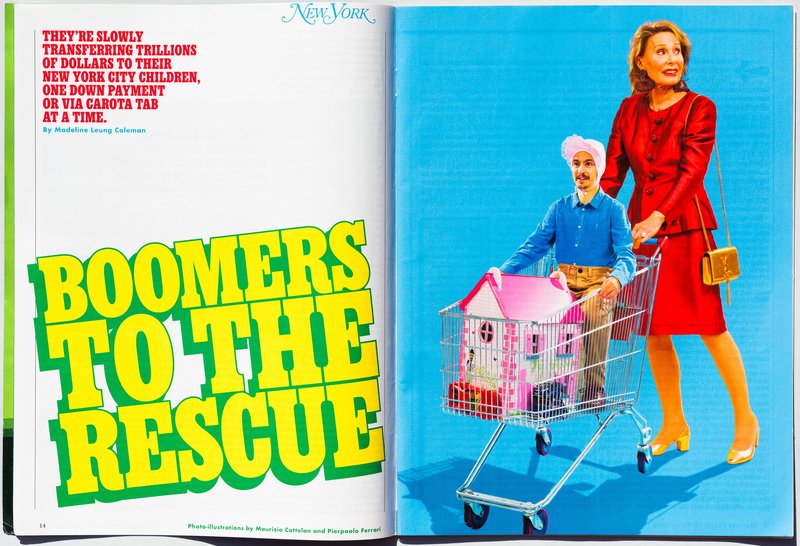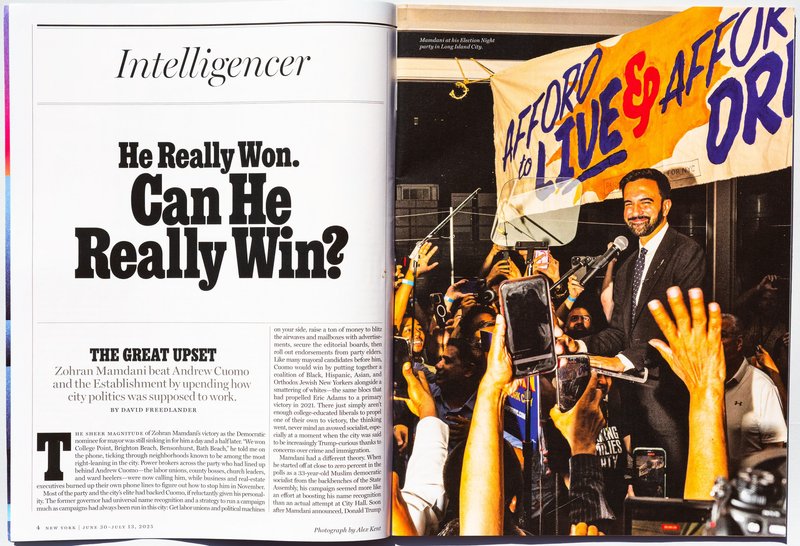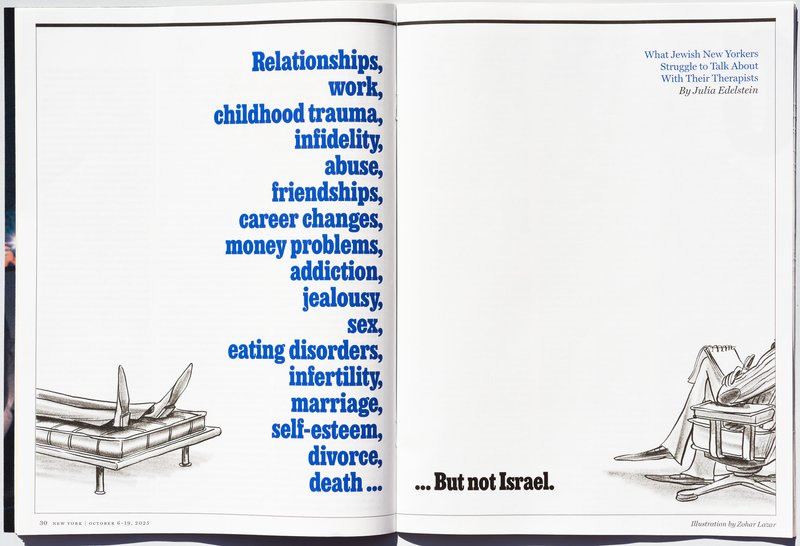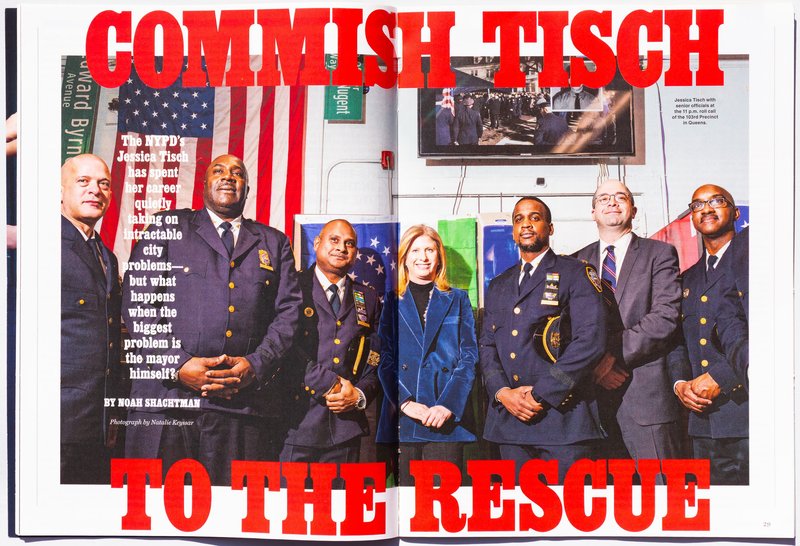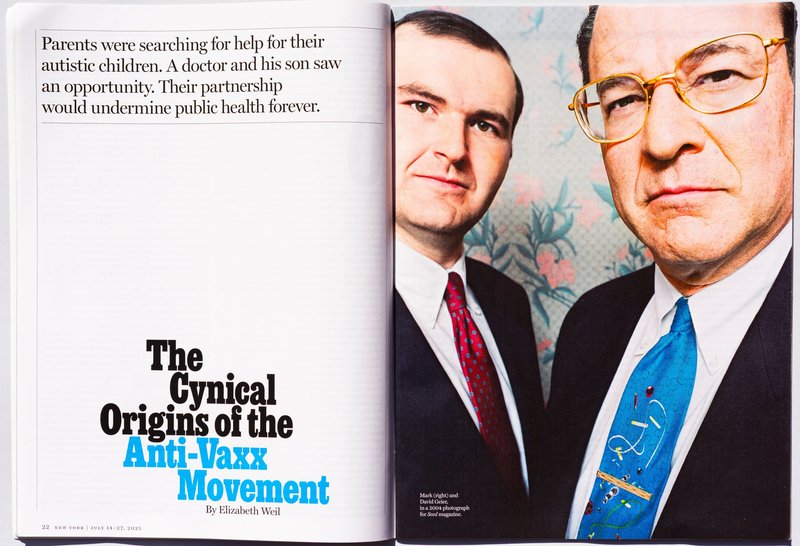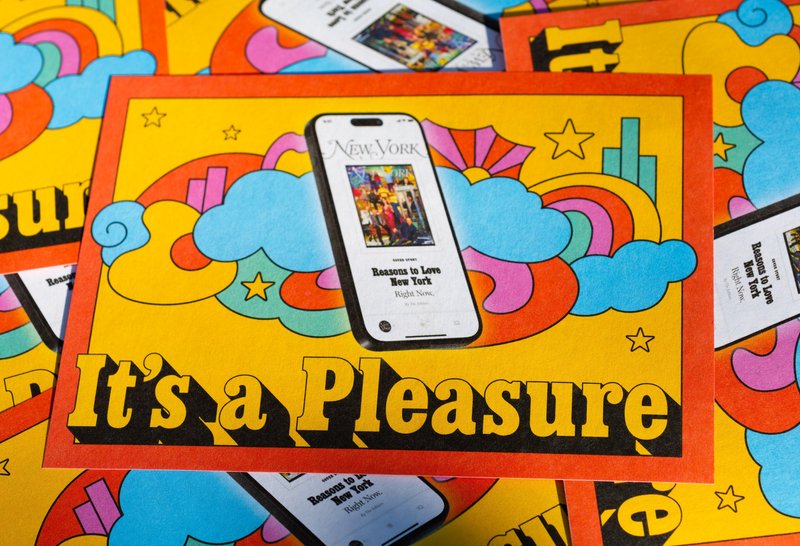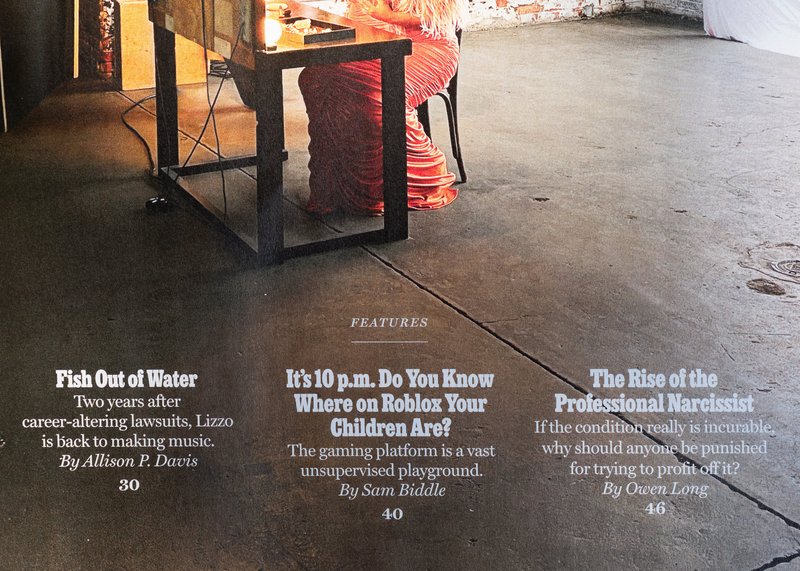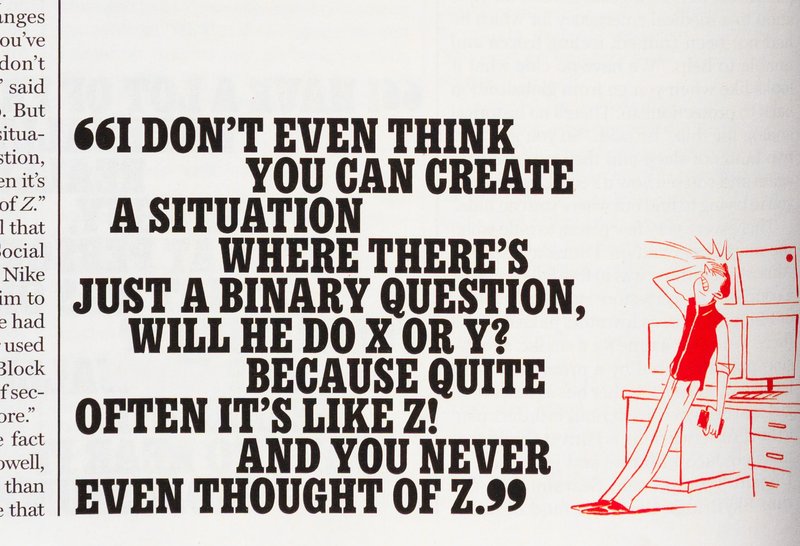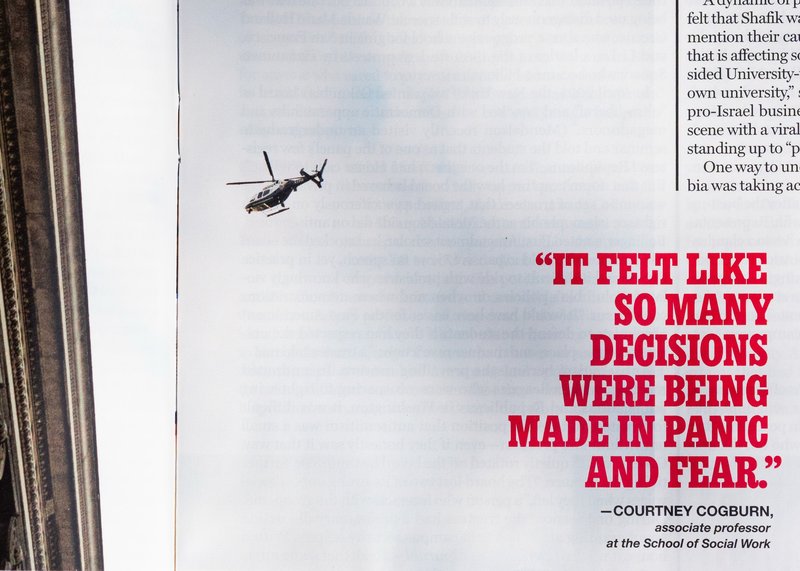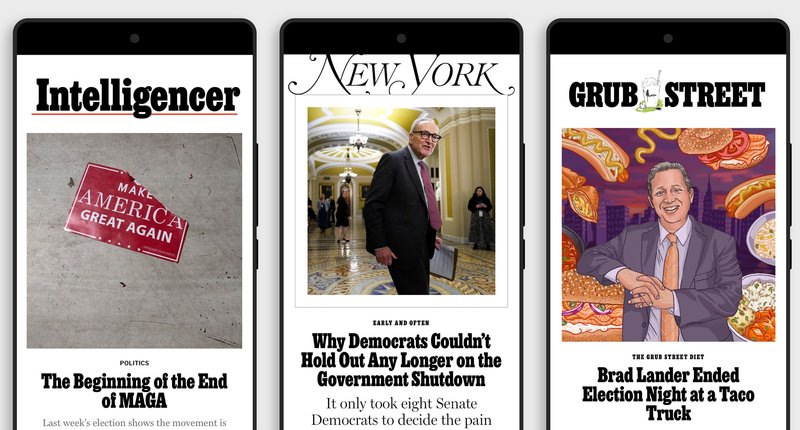
New York magazine’s iconic display type has been part of its visual DNA since Milton Glaser first chose Photo-Lettering’s interpretation of Egyptienne Bold Condensed in the 1960s. Over time, the unmistakable, chunky slab serif has become a visual voice of New York City itself. But for the magazine’s designers who worked with it every day, the charm of the typeface came with compromises.
Custom typeface for New York magazine
Brand new app, brand new typeface
Legacy meets a limit
Covers featuring the new typeface
For decades, the magazine had relied on an early digital interpretation of Egyptienne, with inconsistent spacing and kerning, major weight imbalances, poor vector drafting, and a limited character set. It was difficult to read at small sizes, it lacked an italic, and many important glyphs were nearly unusable. Over time, the magazine’s staff had developed a patchwork of workarounds, even switching fonts entirely when setting certain symbols. These signs pointed to a deeper issue: a typeface that had outlived its utility, and one that was never truly optimized for digital use.
“The caps were super heavy compared to the lowercase,” said Ian Adelman, chief experience officer at Vox Media, who oversaw the project. “It just felt kind of glaring—like if you had a capital M, it dominated everything.”
Print designers could massage layouts manually, but on the web and in the app, it was a different story. Eventually, workflow delays and legibility challenges demanded an intervention.
A worthy update to a quintessential aesthetic
When the magazine approached us, it wasn’t our first time working with the team. In 2018, Ben designed a super-compressed version of Egyptienne for their 50th anniversary issue—a project that gave us a head start in understanding their tone, workflow, and needs.
The new commission, however, was much broader in scope. The magazine needed a typeface that would perform better in small sizes for the upcoming relaunch of their app. But we saw an opportunity to give them something much more robust: a versatile, variable type family tailored to their entire ecosystem. The goal wasn’t to reinvent, but to retain its iconic look while solving years of accumulated friction.
The two extremes of the optical size axis, Banner for large sizes (top) and Rubric for small (bottom), include optical adjustments to letterspacing and internal negative spaces.
Our designers, Ben and Zrinka, collaborated on the new commission, with some outside design assistance from Robin Mientjes, focusing on core features to shape the foundation for a contemporary interpretation of Egyptienne:
Rendering signature typographic quirks with confident vector curves
A true italic, created from scratch with no precedent
Optical sizes on a variable font axis, ensuring legibility in all of the magazine’s anticipated applications—both print and digital
Thoughtful design for previously-overlooked glyphs like the ampersand, currency symbols, and punctuation
Contextual alternates to improve spacing and layout across platforms
Rather than basing our work on the previous digital version, we took inspiration from Schelter & Giesecke’s Halbfette Egyptienne (circa 1880), selectively modernizing certain details along the way, tailored to the magazine’s preferences and usage.
A focus on italics
For the new italic, we collaborated with the magazine to expand the visual language, while respecting the original aesthetic that readers had come to expect.
Thomas Alberty, design director for the magazine, noted: “The italic had to be usable—not so fussy or so different that it felt foreign to readers.”
The new italic
With no original italic to reference, Zrinka looked to other slab serifs from the same historical period, building a set of rules and gestures that could coexist with the Roman. The result is a hybrid between cursive and oblique; some characters are more decorative, others are more simple and blunt. The team considered multiple versions of key letters—such as the a, v, and g—before settling on a system that felt elegant, expressive, and honored the original aesthetic.
The new italic gives the magazine the typographic tools it has long lacked, along with a whole new expressive voice.
From workarounds to workhorse
The new typeface smoothed out decades of inefficiencies. Manual tweaks, kludgy workarounds, and visual inconsistencies across platforms were replaced by a coherent, polished system.
Now, contextual alternates handle tricky kerning combinations, and the optical sizing axis means the same font could serve both high-impact headlines and tiny footnotes — no more switching fonts for special characters. Finally, the new typeface brings much-needed balance between uppercase and lowercase.
We hired pros and let them do what they do. We dropped the new typeface in with zero issues—that’s a huge deal—and the whole magazine just looks more cared for.
Ian Adelman, chief experience officer at Vox Media
Reaffirming the iconic New York look
Our work with New York went beyond historical restoration—it continues a storied design lineage with fresh thinking. We honored the spirit of the original while extending it, refining it, and making it speak more clearly in today’s media landscape.
“It's quirky and chunky in its own way,” said Thomas. “It has charm.”
The new typeface carries the brand’s legacy forward and reaffirms the magazine’s identity with new tools for the future.